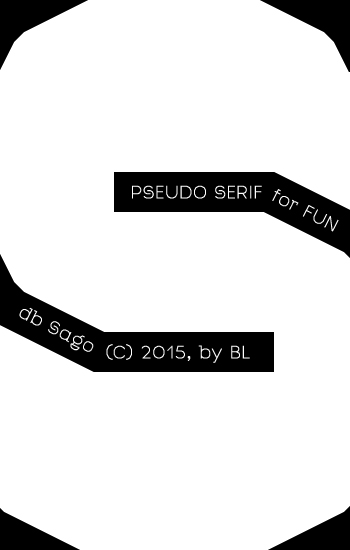
db Sago
Beautifully balanced and legible.
Congratulations! FontStruct Staff have deemed your FontStruction worthy of special mention. “db Sago” is now a Top Pick.
To prove to myself how awesome your natural typographic talent is, I tried to make a font thinking 'I am beate, I am beate'.
Well, just thinking that made no difference. It turned out the same terrible mess as always.
Only you are you...always awesome.
Great (as always) 10/10+fav